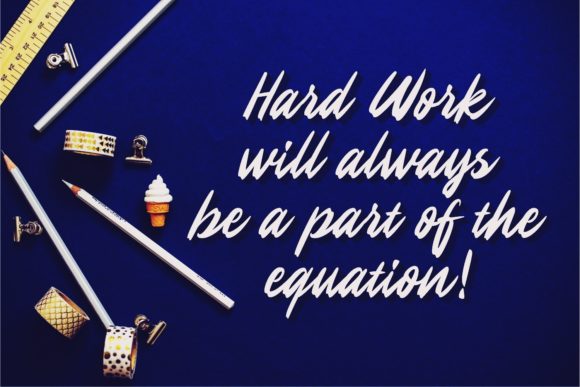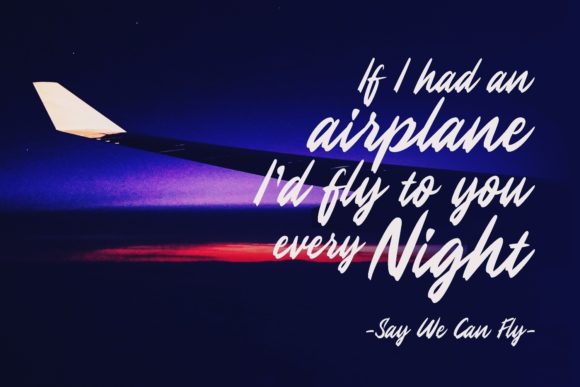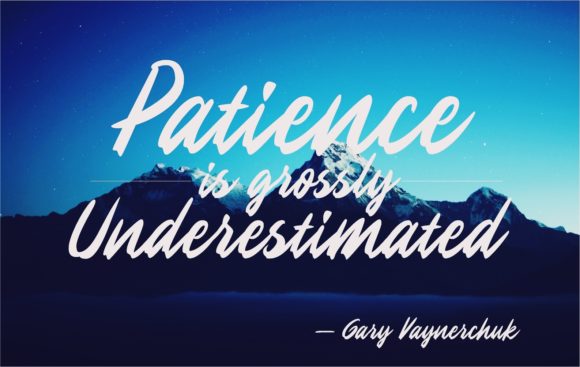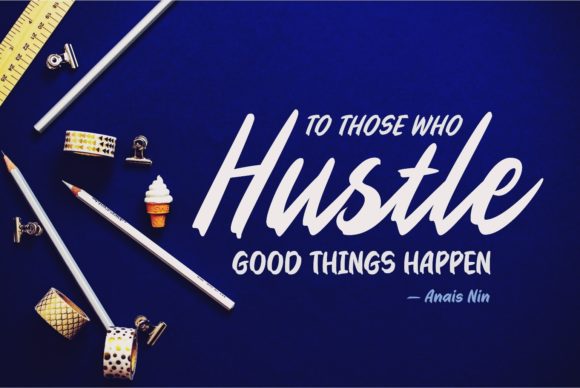
Introduction to Maines Font
Maines is a sweet and simple script with a vintage look.
Get inspired by its authentic charm .
Key Features of Maines Font
Why Choose Maines Font?
Maines Font offers exceptional quality and versatility, making it a valuable addition to your design toolkit. Whether you’re creating for personal projects or commercial use, Maines Font delivers professional results.